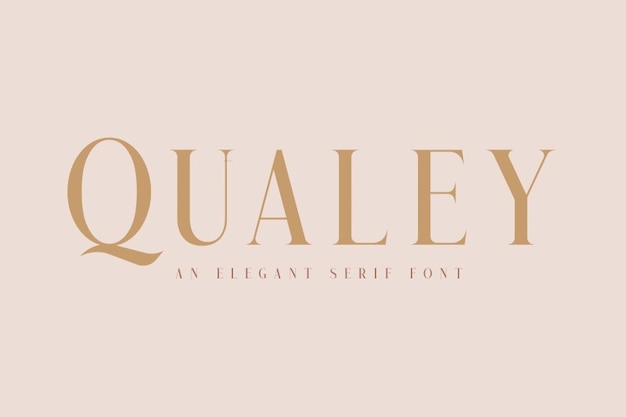
Qualey Font
Qualey font is an embodiment of elegant simplicity in the modern design world. Each character radiates a clean, contemporary charm, turning your text into a visually striking work of art. It's the ideal choice when you want to convey a sense of refined minimalism and timeless style. Qualey effortlessly balances elegance with modern simplicity, making your words an expression of contemporary sophistication that leaves a lasting impression of understated beauty.